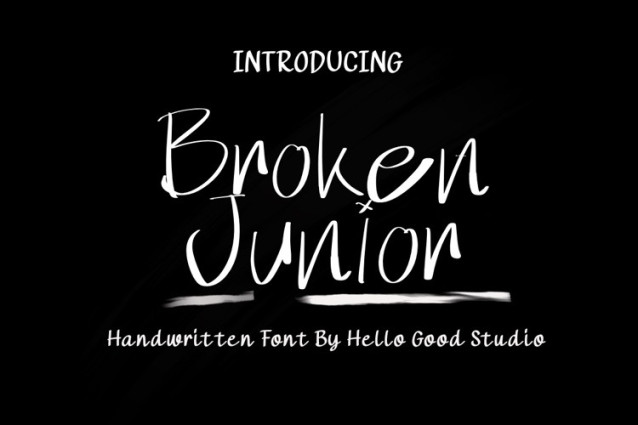
Broken Junior Font
Broken Junior Font is a simple and friendly handwritten font. Its natural and unique style makes it incredibly fitting to a large pool of designs. The only limit is your imagination!